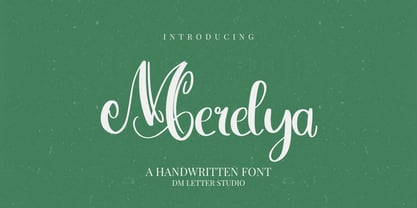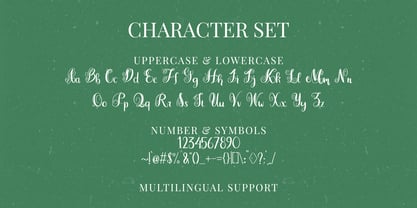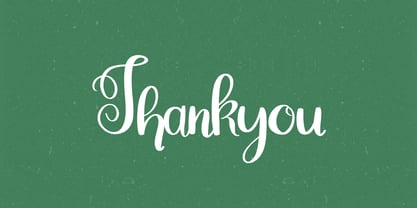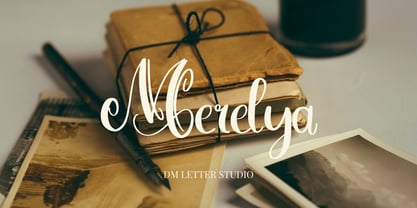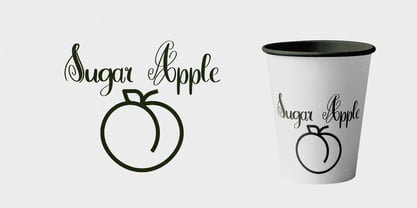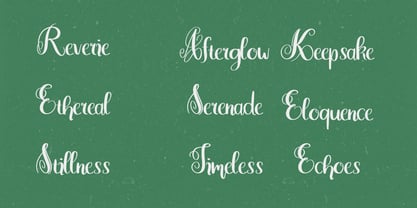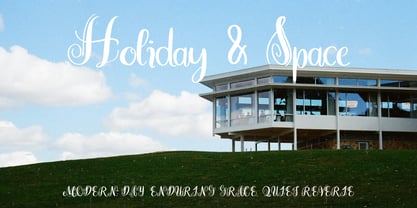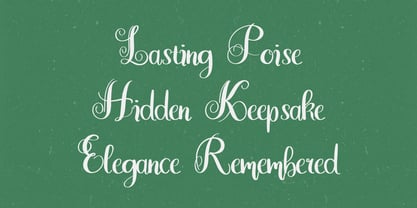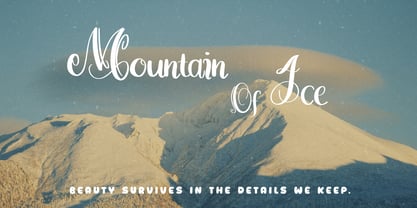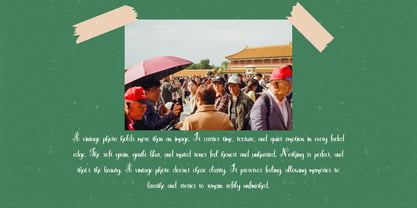
Merelya
by DM Studio
The Merelya Font Family was designed by Dimas Prasetyo and published by DM Studio. Merelya contains 1 styles.
Meet Merelya, the Beautiful Handwriting Font Merelya is a beautiful handwriting font with smooth, flowing strokes and a soft, natural rhythm. It feels elegant yet approachable, like a thoughtful note written by hand. The letterforms are light and balanced, so text stays readable at small sizes while looking graceful in larger statements. Use it for quotes, branding, wedding stationery, packaging accents, social media, and heartfelt designs. As a result, your work feels warm, personal, and effortlessly refined. Why Merelya Handwriting Font sells First, it installs easily and works smoothly in Canva, Photoshop, Illustrator, and most design apps. Next, the clean handwritten strokes export beautifully for both print and digital use. Then layouts come together faster because the letters flow naturally and space well. Moreover, Merelya pairs perfectly with minimalist sans fonts and elegant serifs, helping you build balanced designs without extra effort. Therefore, it’s ideal for creators who want beauty, clarity, and emotion in one font. Fast layouts with the Merelya Font Start with short phrases, names, or quotes and let the strokes breathe. After that, add supporting text in a clean, neutral font. Because Merelya has a gentle, graceful rhythm, it works especially well in airy layouts, quote cards, and signature-style branding. In addition, it shines on invitations, cards, planners, and packaging details. Finally, try color pairs like blush & ivory, sage & cream, charcoal & white, or soft neutrals to enhance the elegant mood. Creative uses and quick wins Quotes, captions, and social media text Wedding stationery and personal notes Logo signatures and brand messaging Packaging accents, labels, and thank-you cards What you get Uppercase and lowercase letters Numbers and basic punctuation Design tips for Merelya Handwriting Font Keep text concise so the handwritten beauty stays clear. Also, slightly increase letter spacing for small sizes to improve readability. For print, use light or textured paper stocks to enhance the handcrafted feel. Finally, export at 300 DPI for print and at 2× size for web so strokes stay smooth everywhere.
Designers: Dimas Prasetyo
Publisher: DM Studio
Foundry: DM Studio